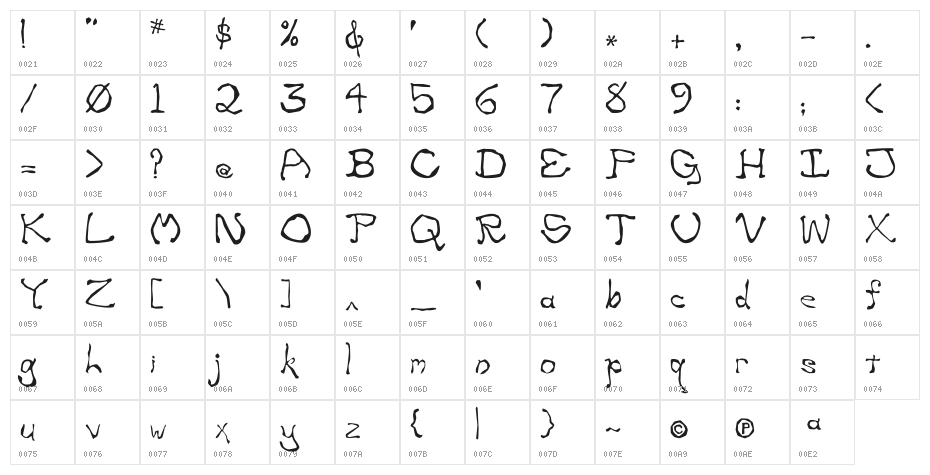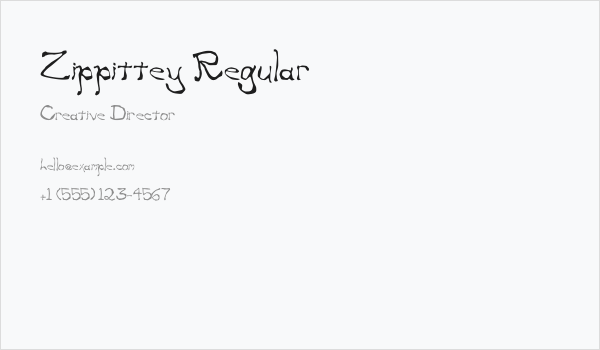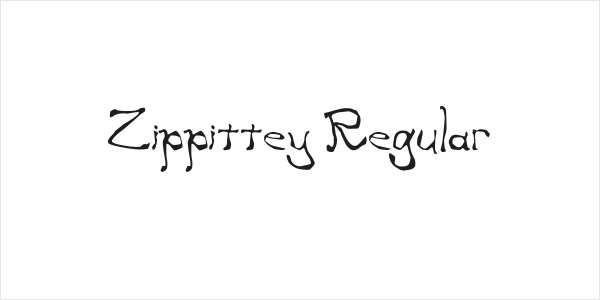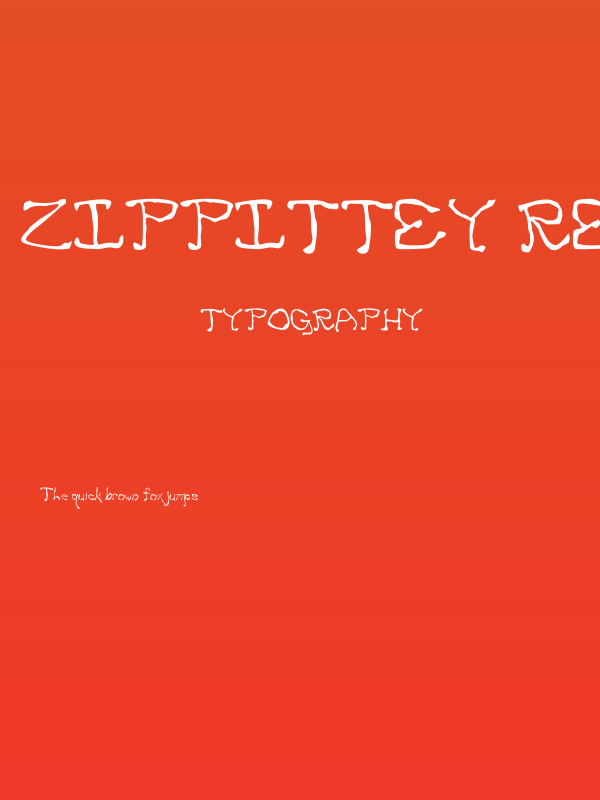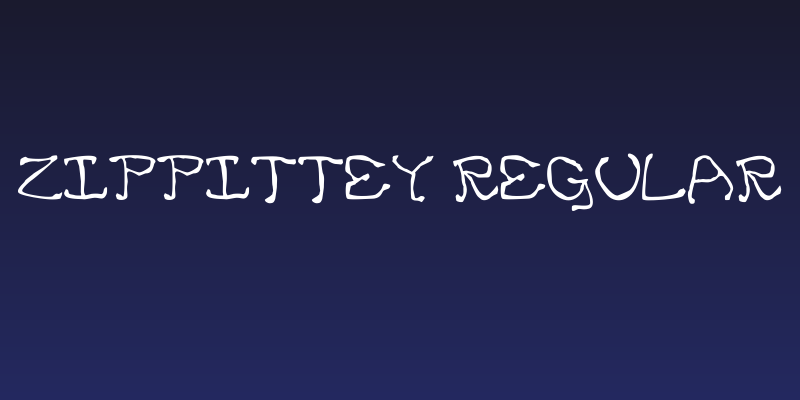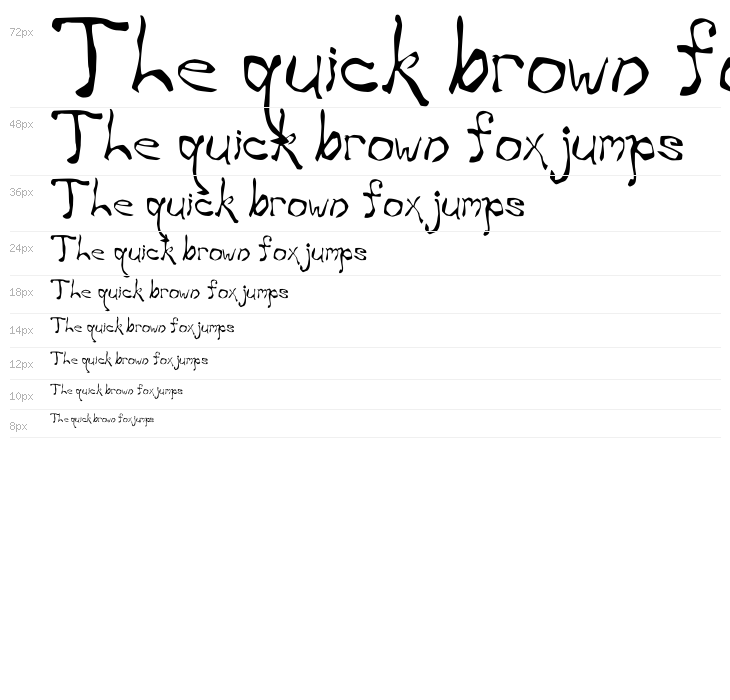
Zippittey Regular Font
Zippittey Regular Description
This font features a playful and whimsical design, characterized by its irregular and uneven strokes that give it a hand-drawn appearance. The letters have a quirky and organic feel, with varying thicknesses and a slightly distorted shape that adds to its charm. The uppercase and lowercase letters maintain a consistent style, while the numerals and special characters follow the same playful theme. This font's unique style makes it stand out, providing a sense of creativity and fun.
Kevin Richey
| Overall Style | Whimsical, Creative |
| Proposed Projects | Ideal for children's book covers, playful branding, creative posters, and artistic invitations. |